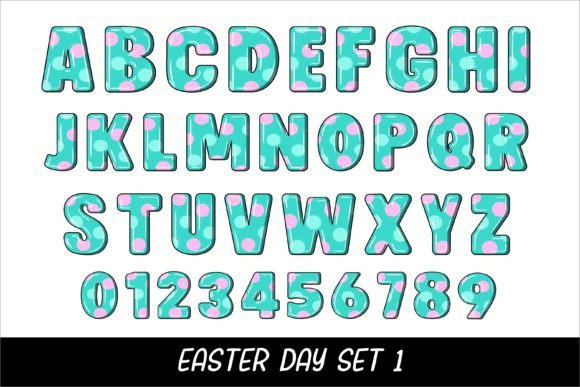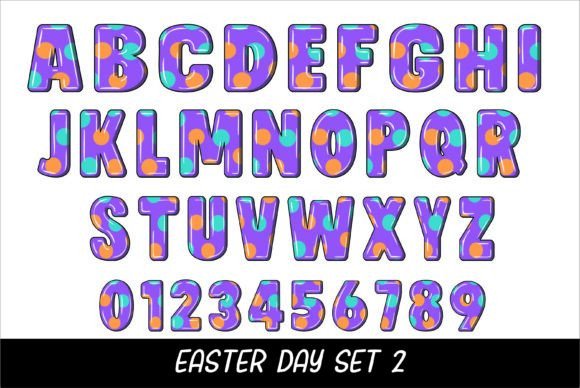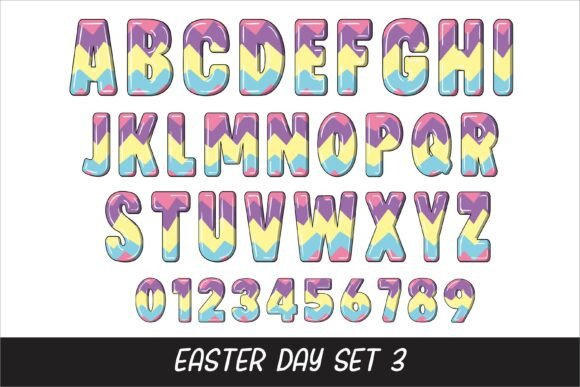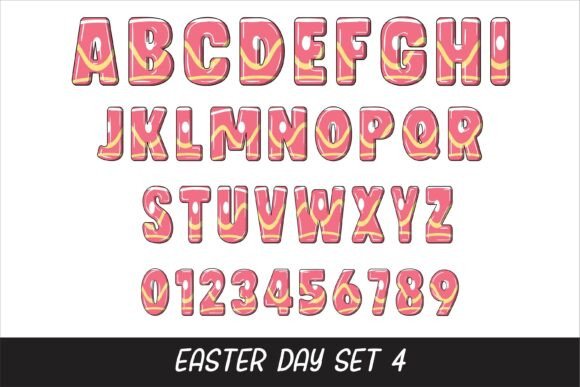
Easter Day Font: A Guide to Choosing the Perfect Typeface for Your Holiday Designs
Easter is a time of renewal, happiness, and celebration, and the right font can help you capture the joyful spirit of the holiday. When it comes to designing Easter-themed materials, such as greeting cards, decorations, or social media graphics, the font you choose can make all the difference. In this article, we’ll explore the typical Easter color palette and font styles that are perfect for creating festive and engaging designs.
The Typical Easter Color Palette
Easter eggs are often associated with bright, cheerful colors that reflect the season’s blooming flowers and fresh beginnings. The typical Easter color palette includes soft pastel shades such as:
- Pink: A delicate and feminine color that represents love, joy, and playfulness.
- Lavender: A soft, soothing color that evokes feelings of calmness and serenity.
- Light Blue: A gentle and airy color that represents clarity, purity, and happiness.
- Mint Green: A fresh and vibrant color that symbolizes growth, renewal, and harmony.
- Pale Yellow: A bright and cheerful color that represents sunshine, optimism, and warmth.
- Peach: A soft and inviting color that adds a touch of sweetness and elegance to any design.
These colors work beautifully together and can be used to create stunning Easter-themed designs that are sure to delight both kids and adults.
Easter Day Font Styles
When it comes to fonts, Easter designs usually feature fun, whimsical, and rounded typefaces that feel light-hearted and friendly. Some popular font styles for Easter include:
- Handwritten Fonts: Handwritten fonts are perfect for creating a personal and homemade touch in your Easter designs. They add a warm and cozy feel to your text, making it look like it was written with love and care.
- Calligraphic Fonts: Calligraphic fonts are elegant and sophisticated, making them perfect for creating beautiful Easter-themed decorations and stationery.
- Rounded Fonts: Rounded fonts are playful and fun, making them ideal for creating Easter-themed designs that are meant to be cheerful and uplifting.
- Script Fonts: Script fonts are perfect for adding a touch of elegance and sophistication to your Easter designs. They work beautifully for creating beautiful Easter greetings and invitations.
Tips for Choosing the Perfect Easter Day Font
Choosing the perfect font for your Easter design can be overwhelming, but here are some tips to help you make the right choice:
- Consider the occasion: Think about the type of Easter design you’re creating. Is it for a greeting card, decoration, or social media graphic? Different occasions call for different font styles.
- Think about your audience: Who is your design for? If it’s for kids, you may want to choose a more playful and fun font. If it’s for adults, you may want to choose a more elegant and sophisticated font.
- Experiment with different fonts: Don’t be afraid to try out different fonts and see what works best for your design.
- Keep it simple: Remember, the goal is to create a beautiful and festive design, so keep your font choice simple and easy to read.
Popular Easter Day Fonts for Designers and Crafters
Here are some popular Easter day fonts that designers and crafters love:
- Pacifico: A beautiful script font that’s perfect for creating elegant Easter greetings and invitations.
- Great Vibes: A fun and playful script font that’s ideal for creating cheerful Easter-themed designs.
- Open Sans: A clean and modern sans-serif font that’s perfect for creating simple and elegant Easter designs.
- Alex Brush: A beautiful handwritten font that’s perfect for creating personal and homemade Easter designs.
These fonts are all highly versatile and can be used for a wide range of Easter-themed designs, from greeting cards and decorations to social media graphics and more.
| Font Name | Easter Day Font |
| Author | CHEETAH DOODLE |
Easter is a time of joy, renewal, and celebration, and the right font can help you capture the spirit of the holiday. By choosing a font that’s fun, whimsical, and playful, you can create beautiful Easter-themed designs that are sure to delight both kids and adults. Whether you’re a designer or crafter, we hope this guide has provided you with the inspiration and information you need to create stunning Easter designs that will make your holiday celebrations even more special.